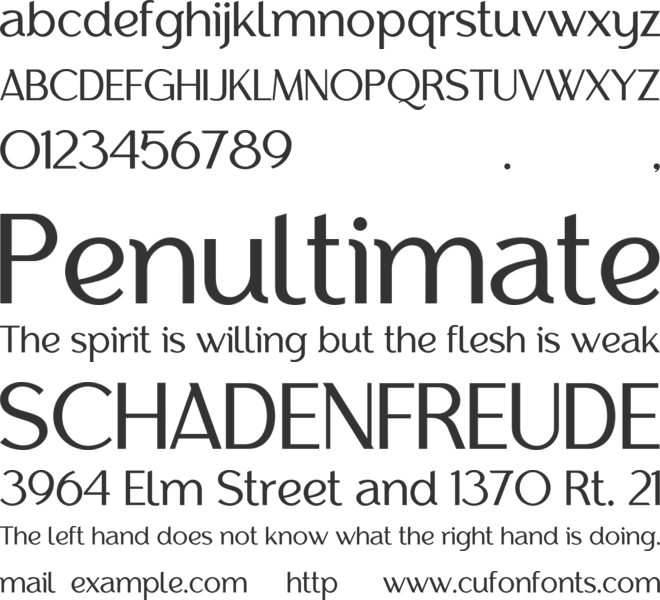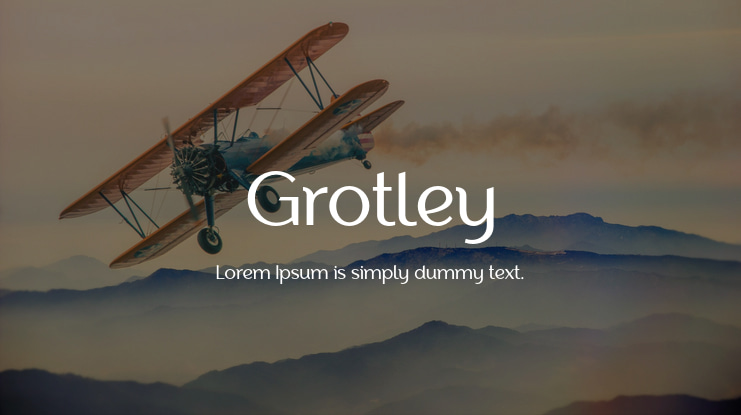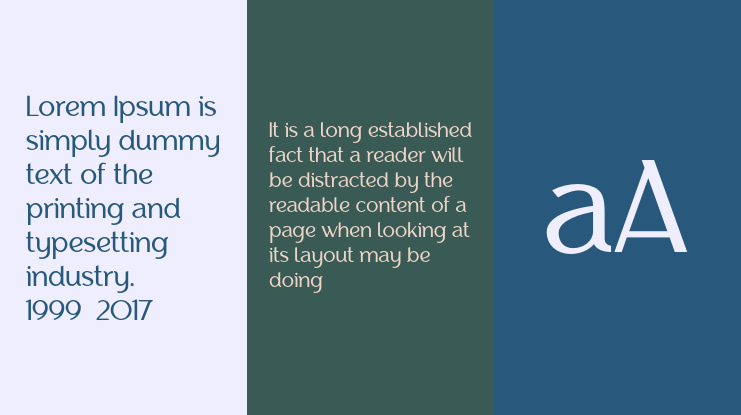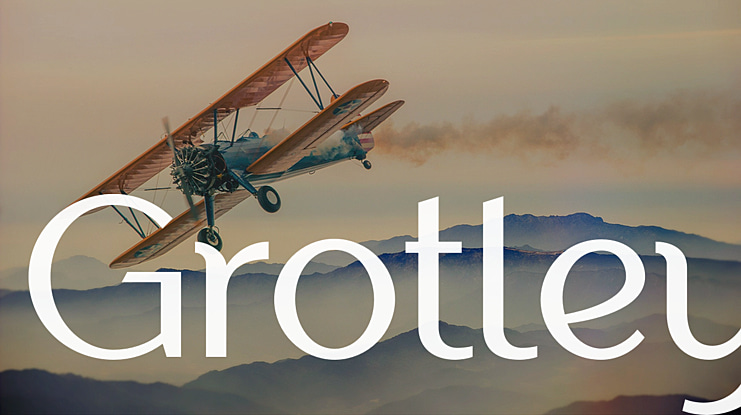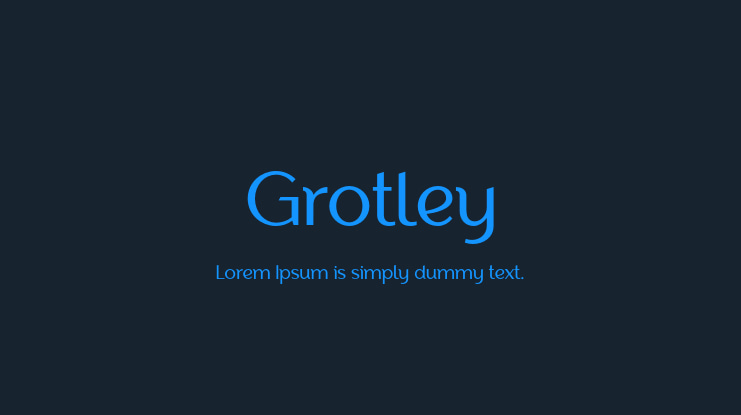
Grotley Font Family
Grotley font family Inspired by the development of the fashion world and the theme of an exclusive vacation spot.
Grotley is designed with a sleek design, perfect for logos, long text, and works well for short and large titles. Grotley provides alternative upper and lower case characters to add style to the design. These alternative font characters can be accessed through open type in the design software you are using. have fun with your design projects with grotley